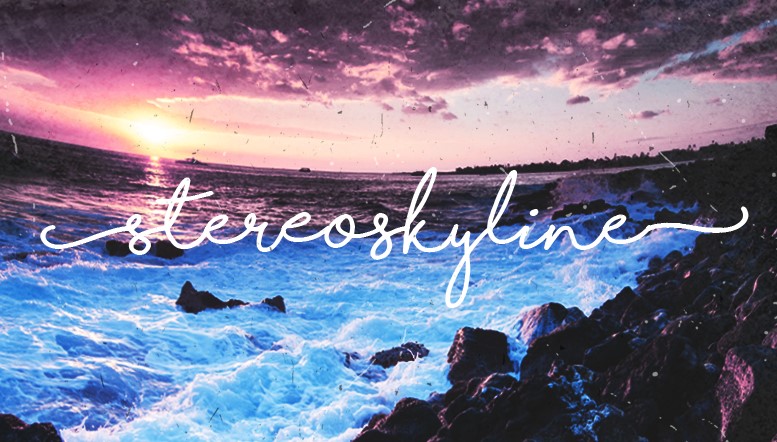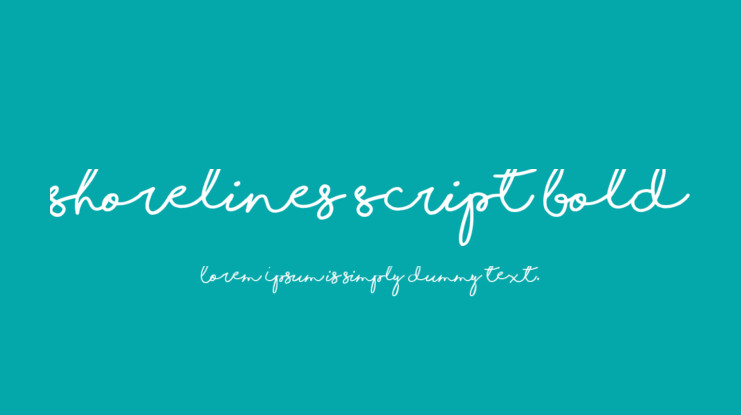
Shorelines Script Font
Shorelines Script Font falls under the class of display fonts. This typeface is famous for its copy and paste function it is similar to watermelon font. It‚Äôs a few special extra incredible script font. Together with every day, moderate, and ambitious alternatives, it’s far the extremely good preference for precise record look.
Amelia script font is a beautiful font that lets you to supply exceptional marriage invitations and private society snapshots. It is an arvo font that additives notable balancing with a median weight sans serif. Shorelines Script Font Free Strive it in posters, birthday gambling cards, and masses of extras. Stimulated through creative efforts created in the initial it is a big font this is stuffed through cautious geopolitics together with blocks in developing positions.
The font like moanas font covers spotless, difficult, chunk, comic strip and extrusion fundamentals to form as plenty as a second look. You could pull missing letters and agree to harvest a handsome font. Wouldn‚Äôt you decide that they‚Äôre impartially exceptional? It‚Äôs excellent-sized to don’t forget that generating fonts is not any comfortable fulfillment.